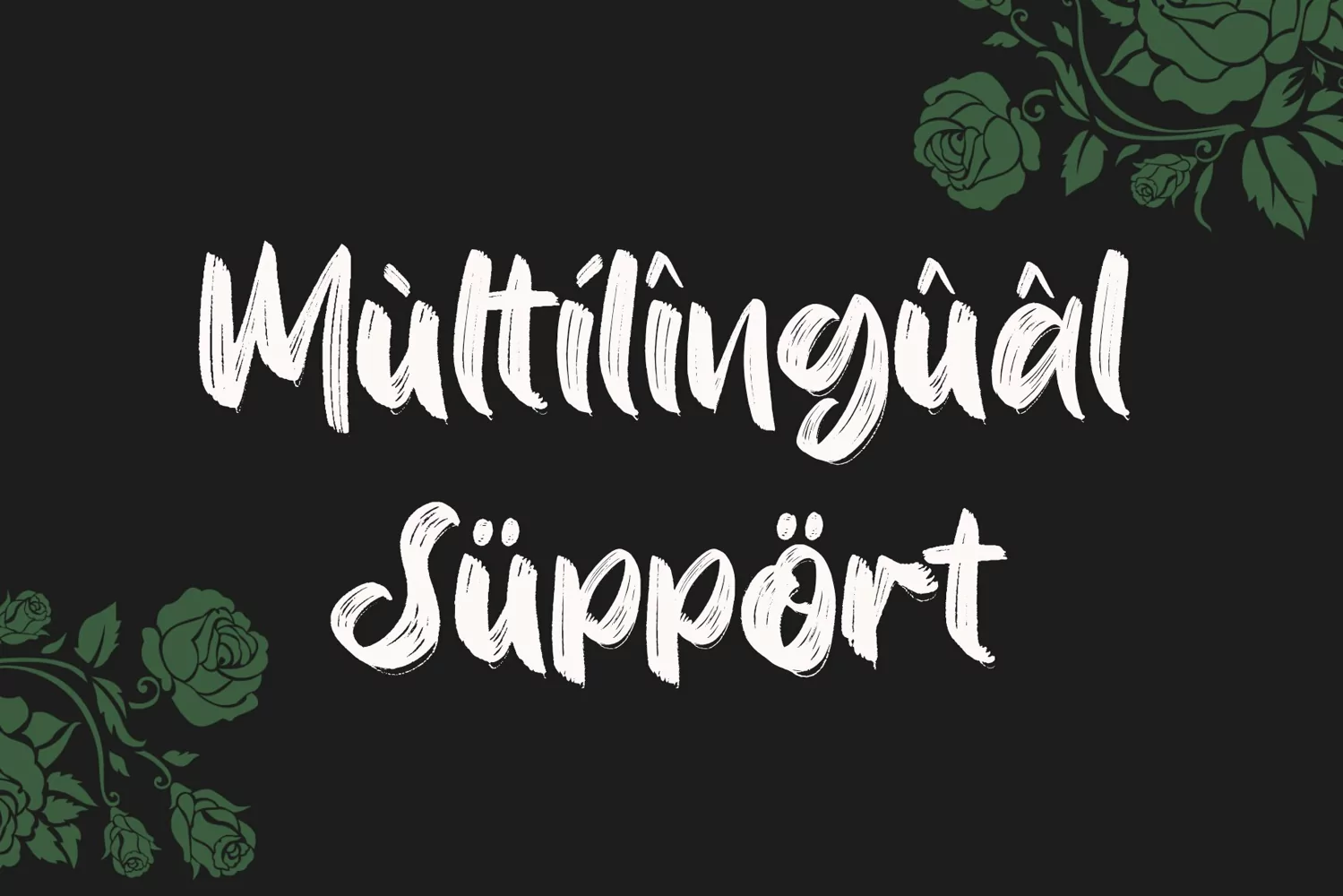
**Sonoxa Font**
This pair was inspired by lettering poster design that i saw on some coffee shop, It was crafted by hand specially to add natural handmade feeling in its brand identity than i make it clean with pentool.
Sonoxa font has 191 character set included
Sonoxa Font is very good looking in logo, labels, t-shirt prints, product packaging, invitations, advertising and others.